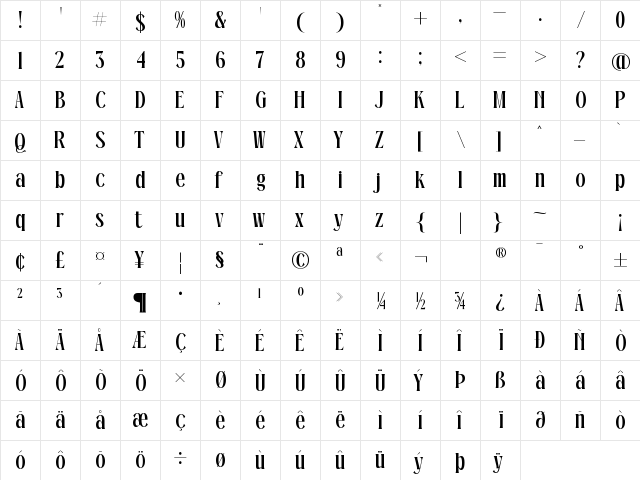
Radiance Beverage is a composed and adaptable typeface that performs quietly and consistently across a wide range of design contexts.
Pro Tip: Use Radiance Beverage in both headline and body roles to test its range before committing to a single application.